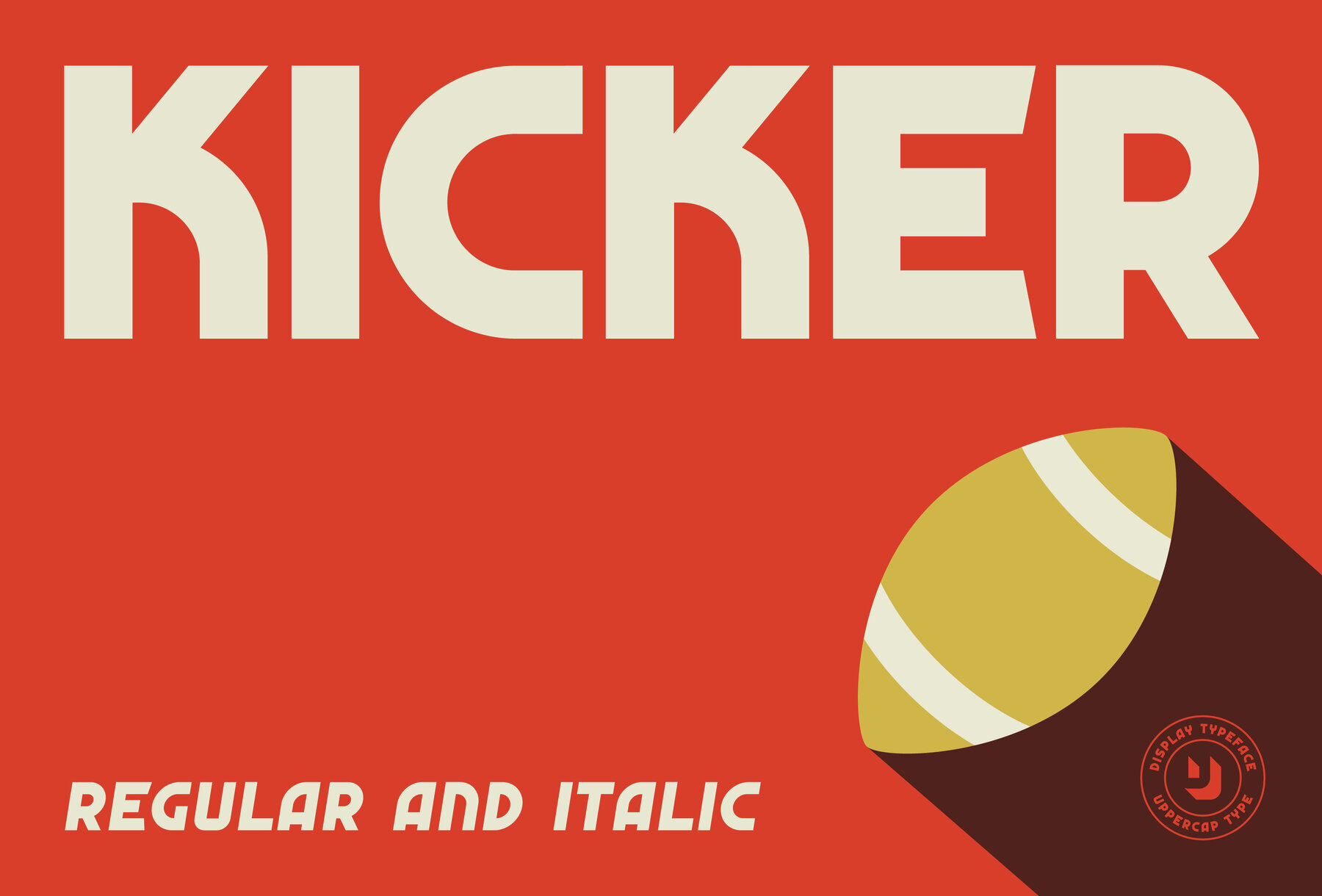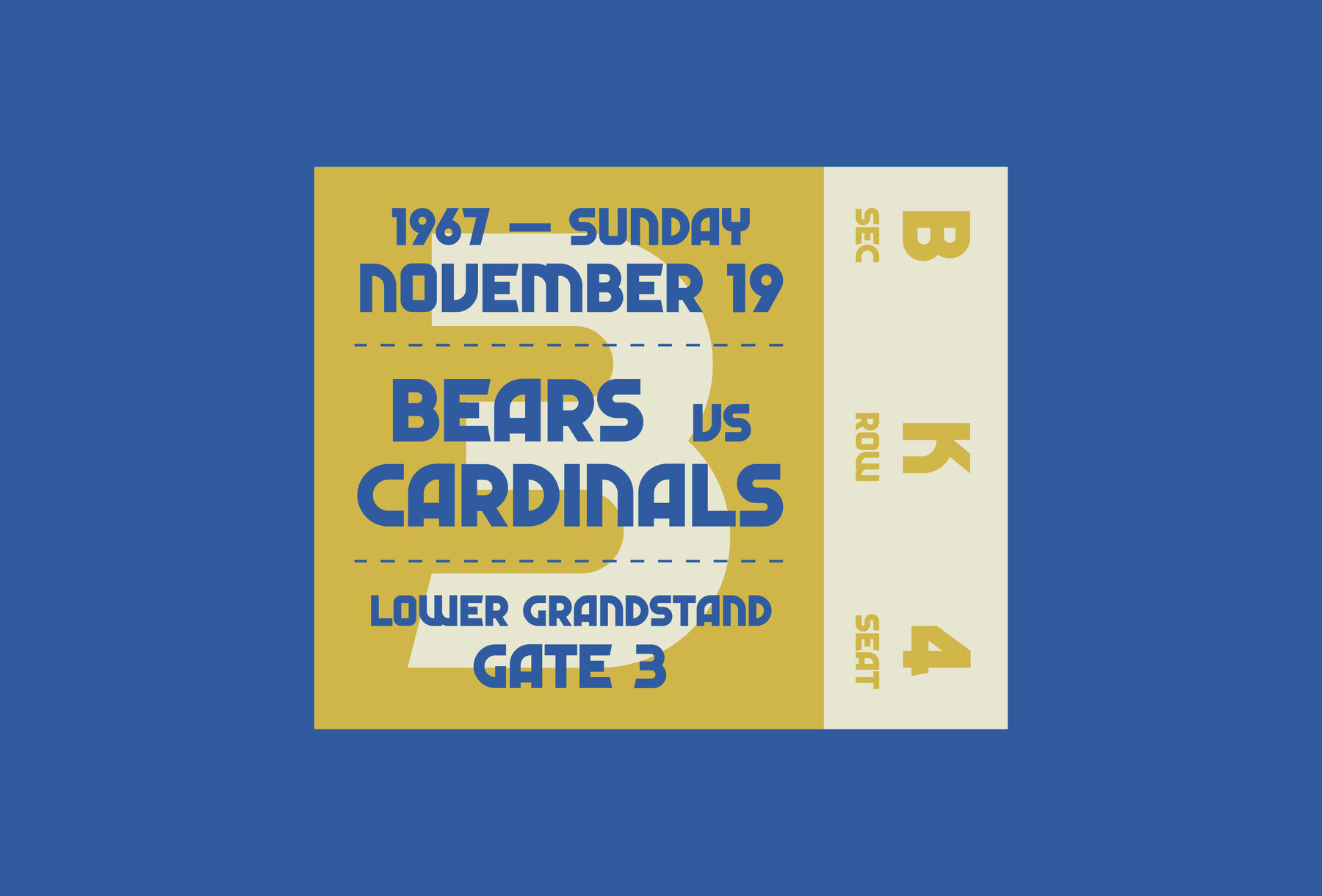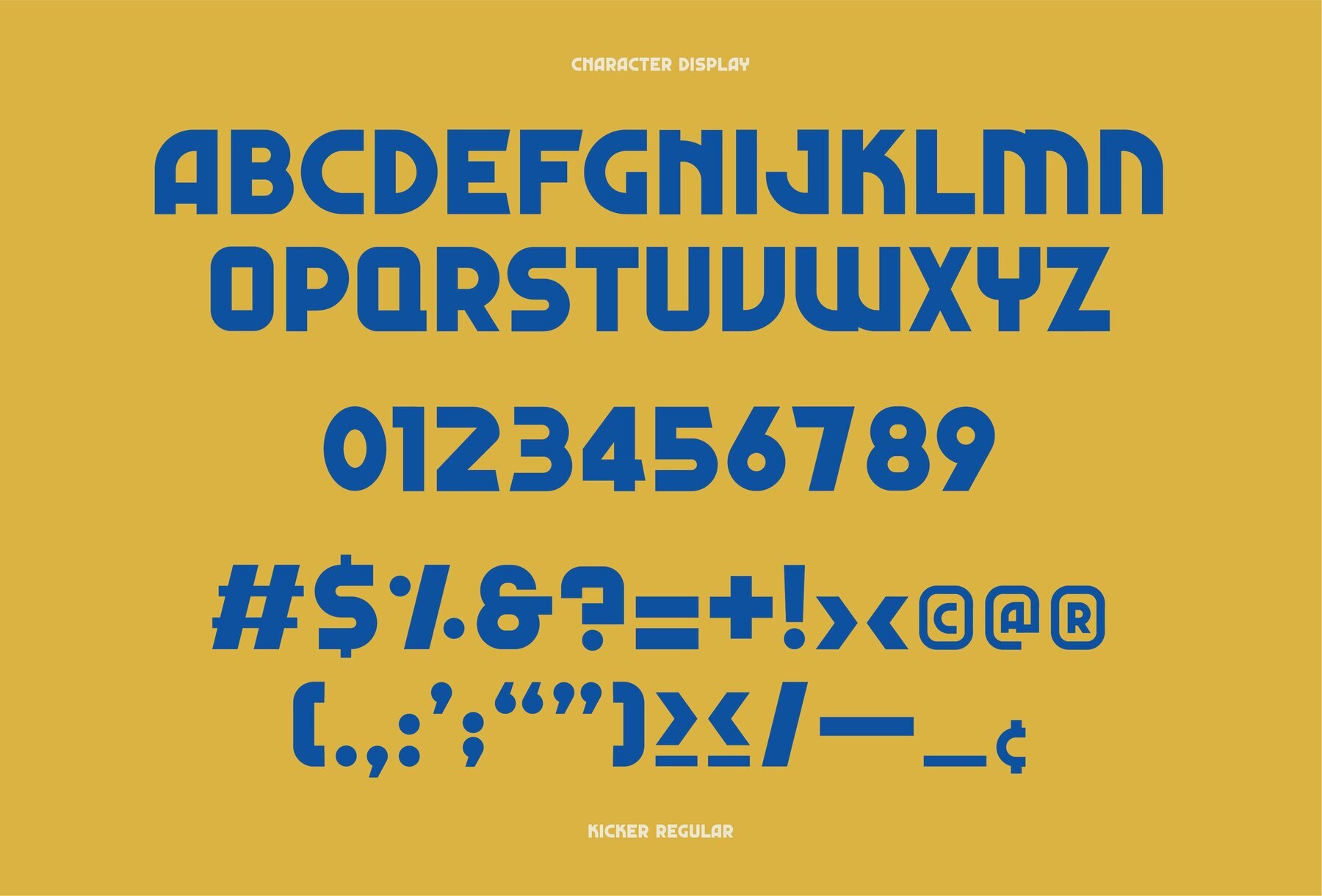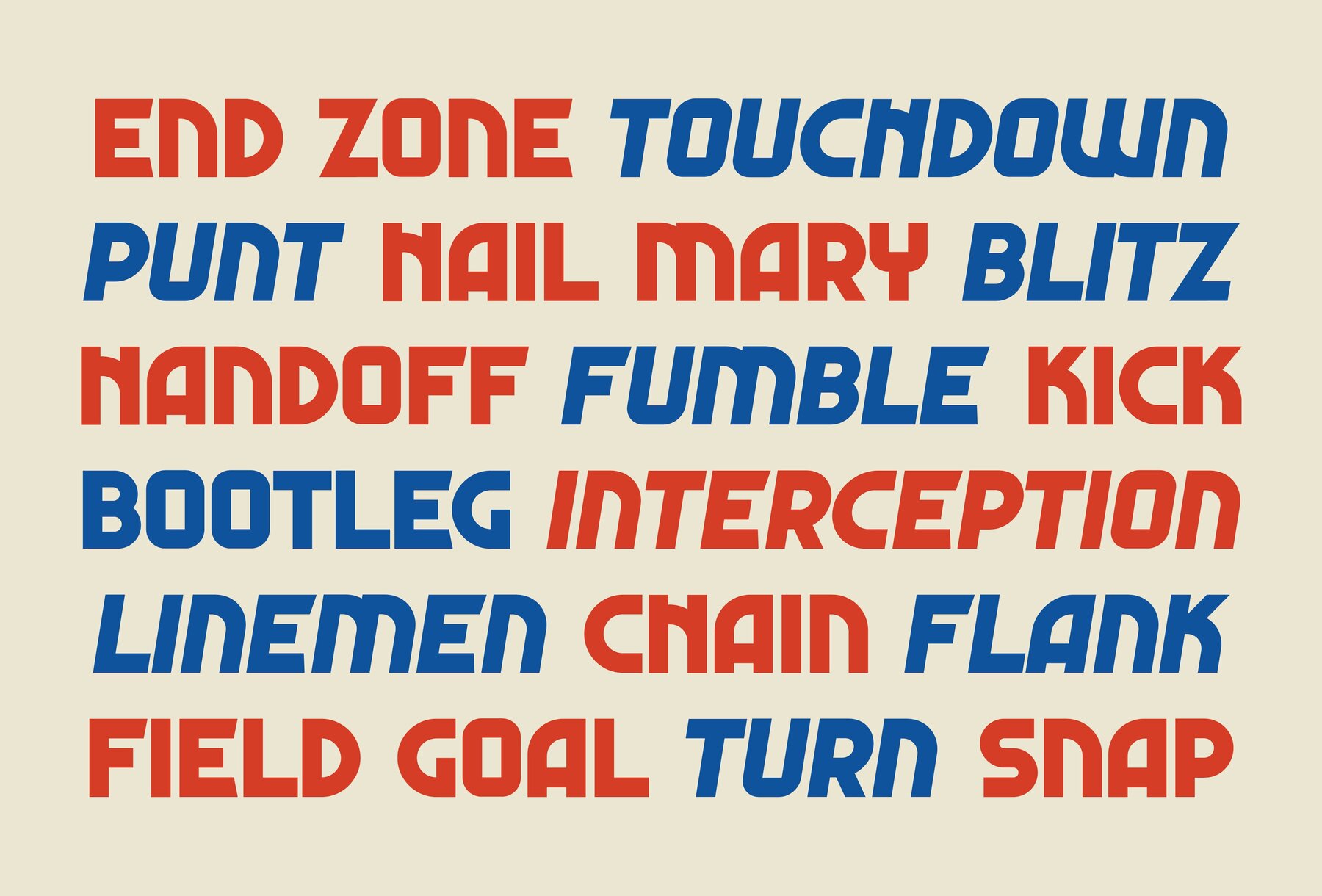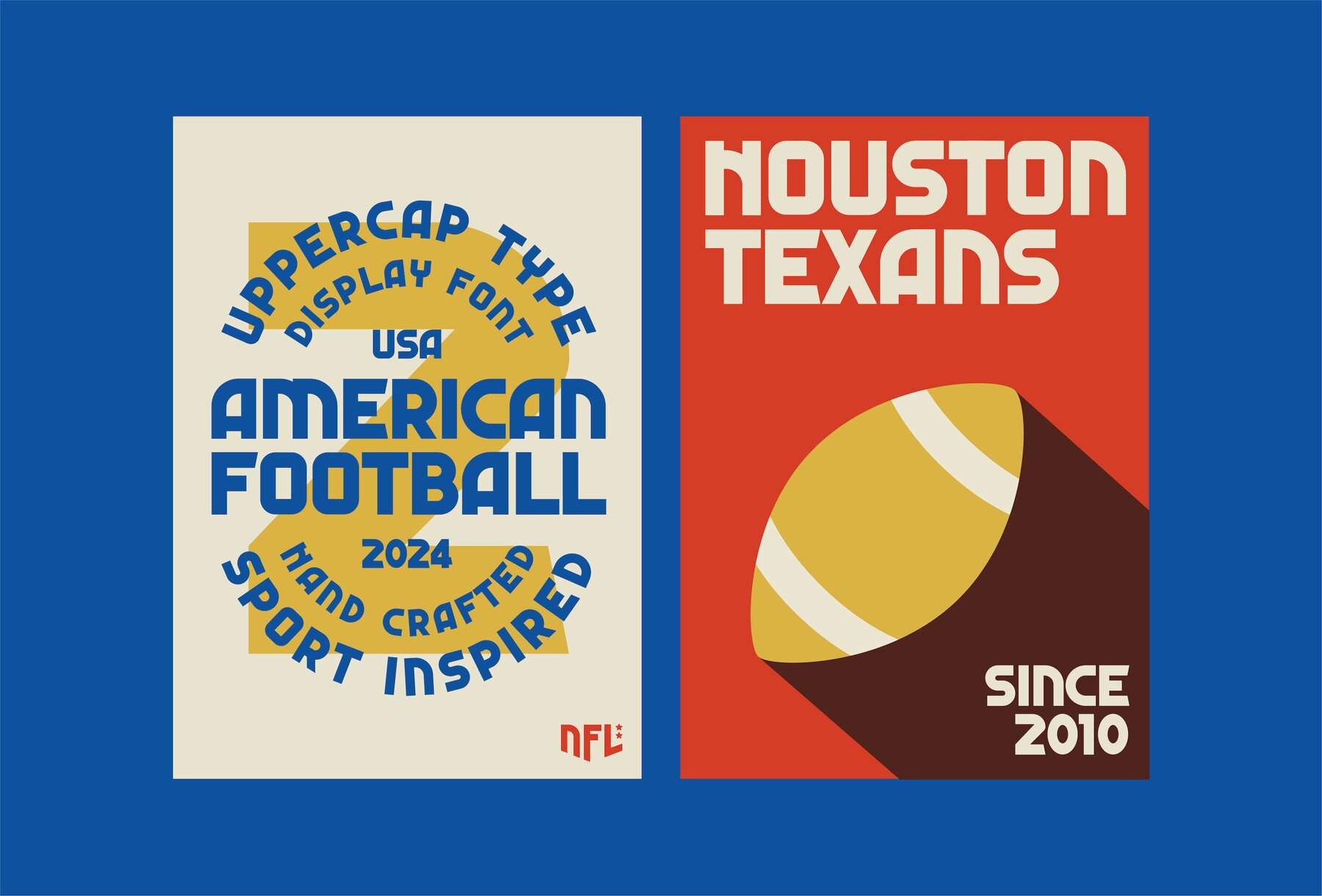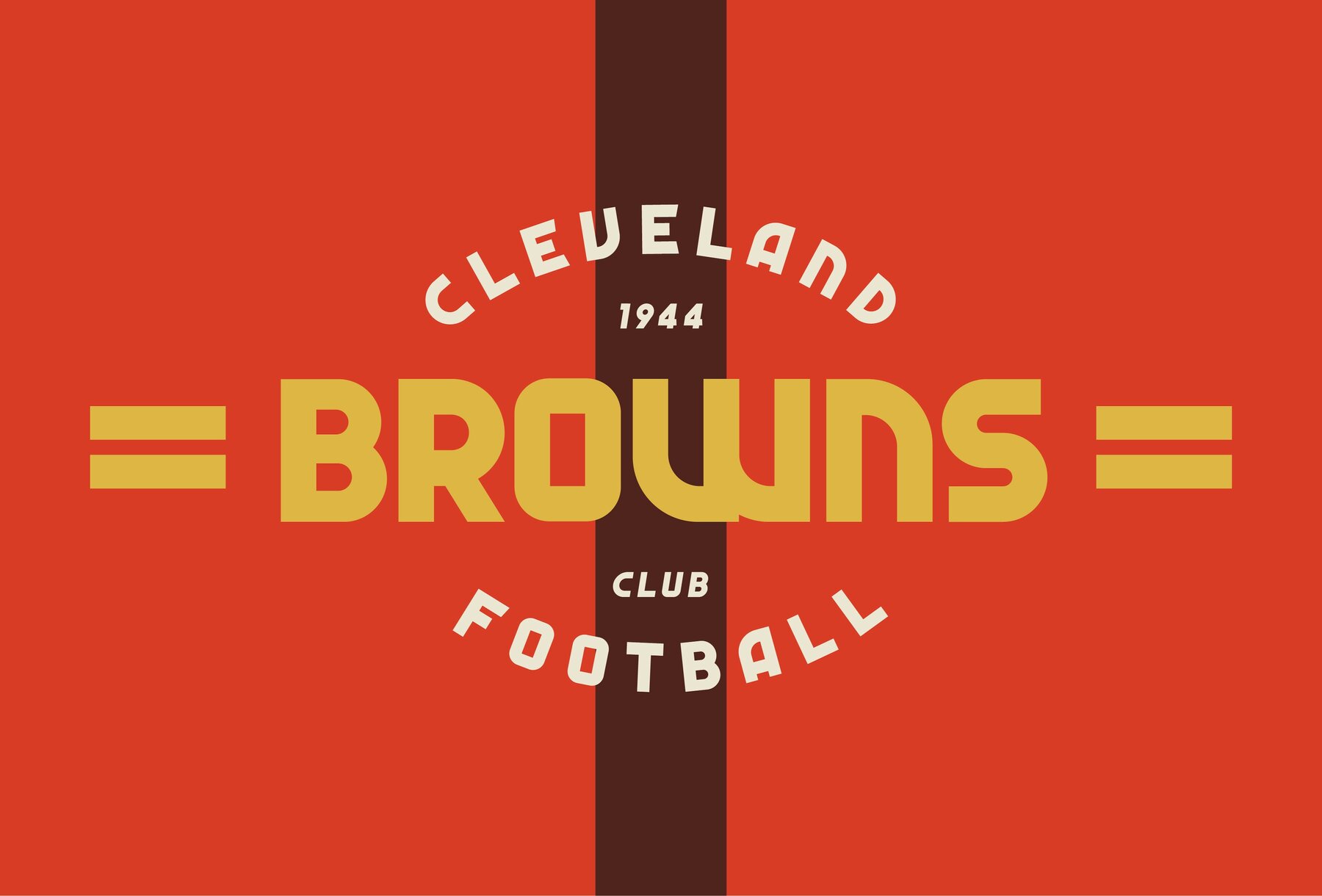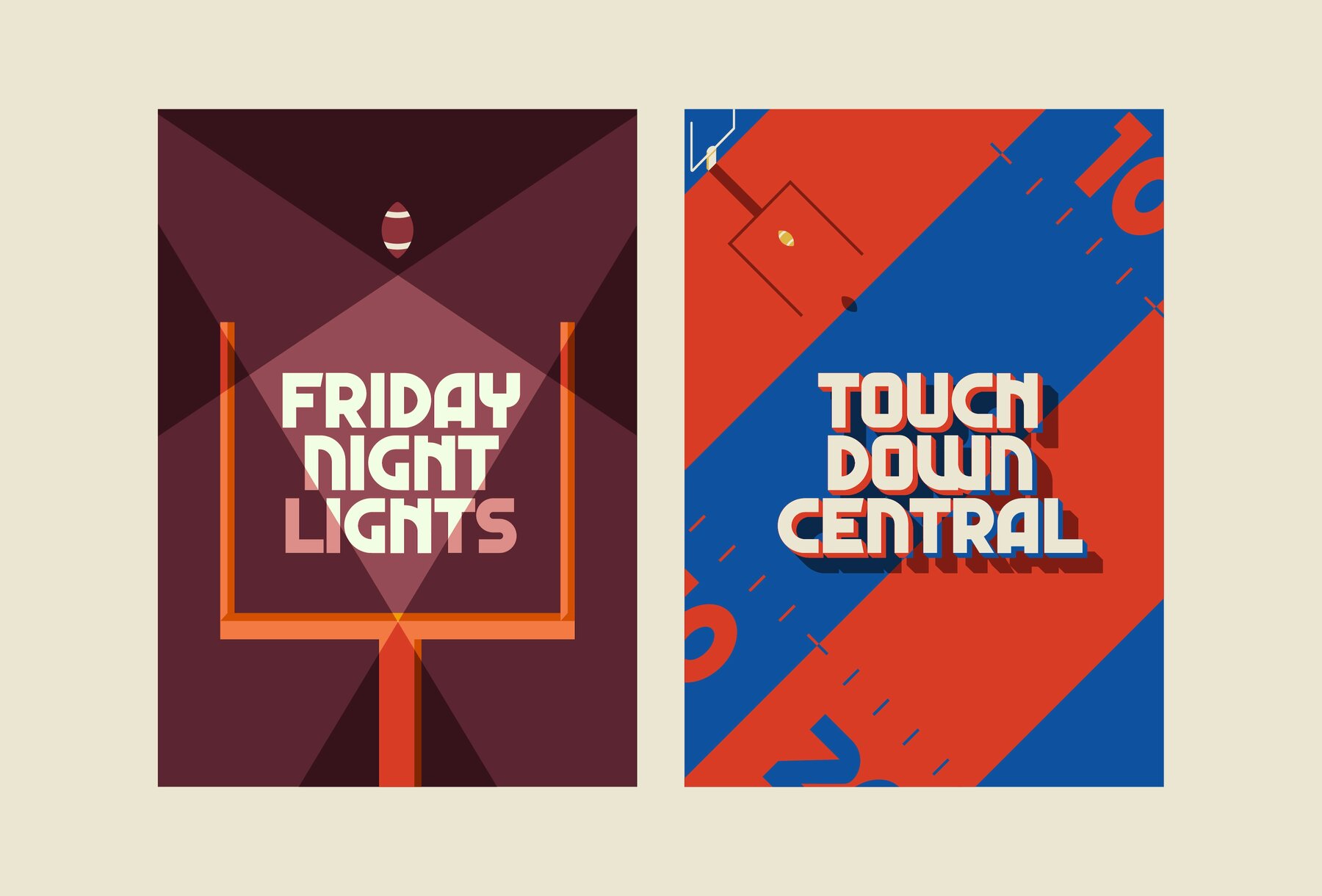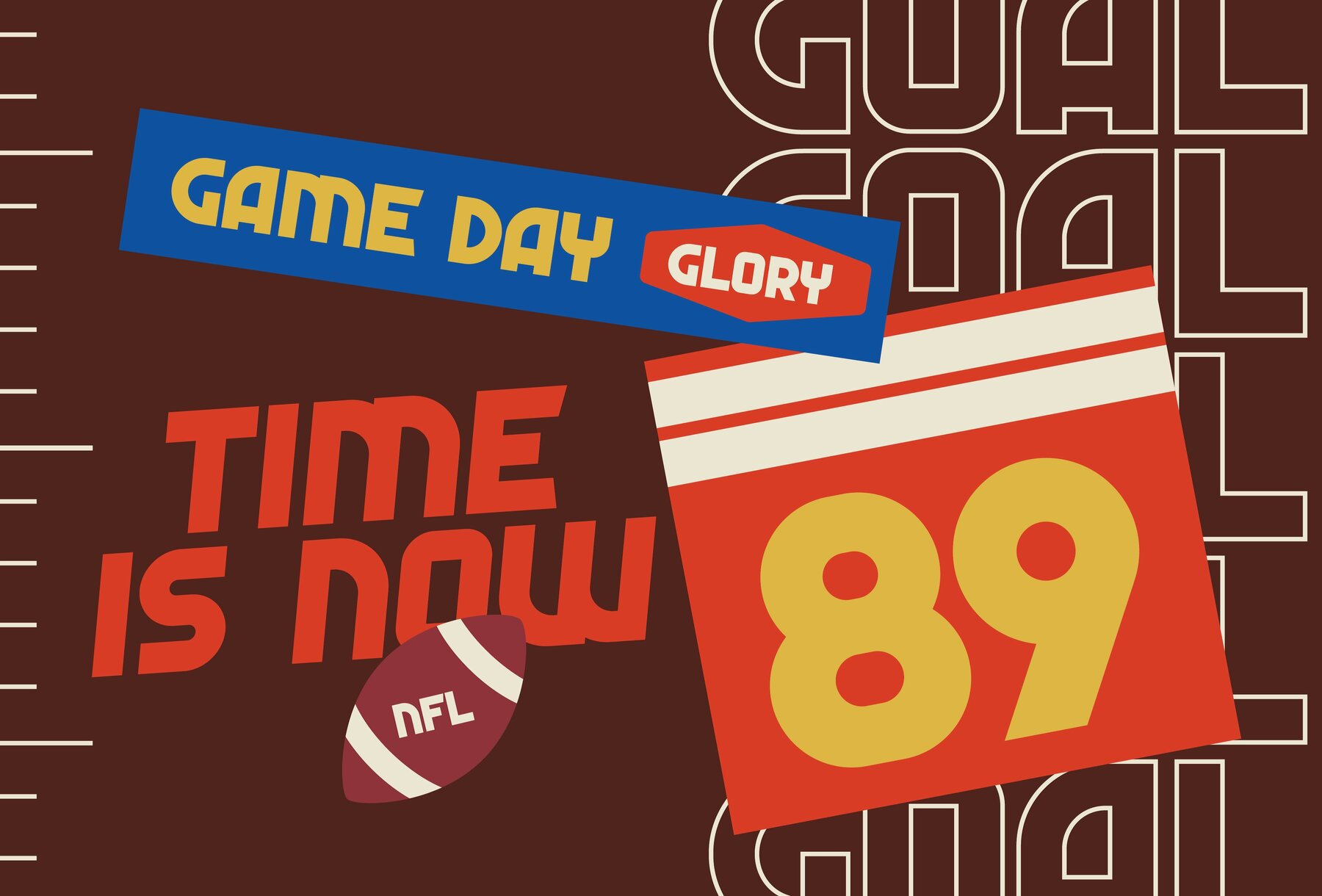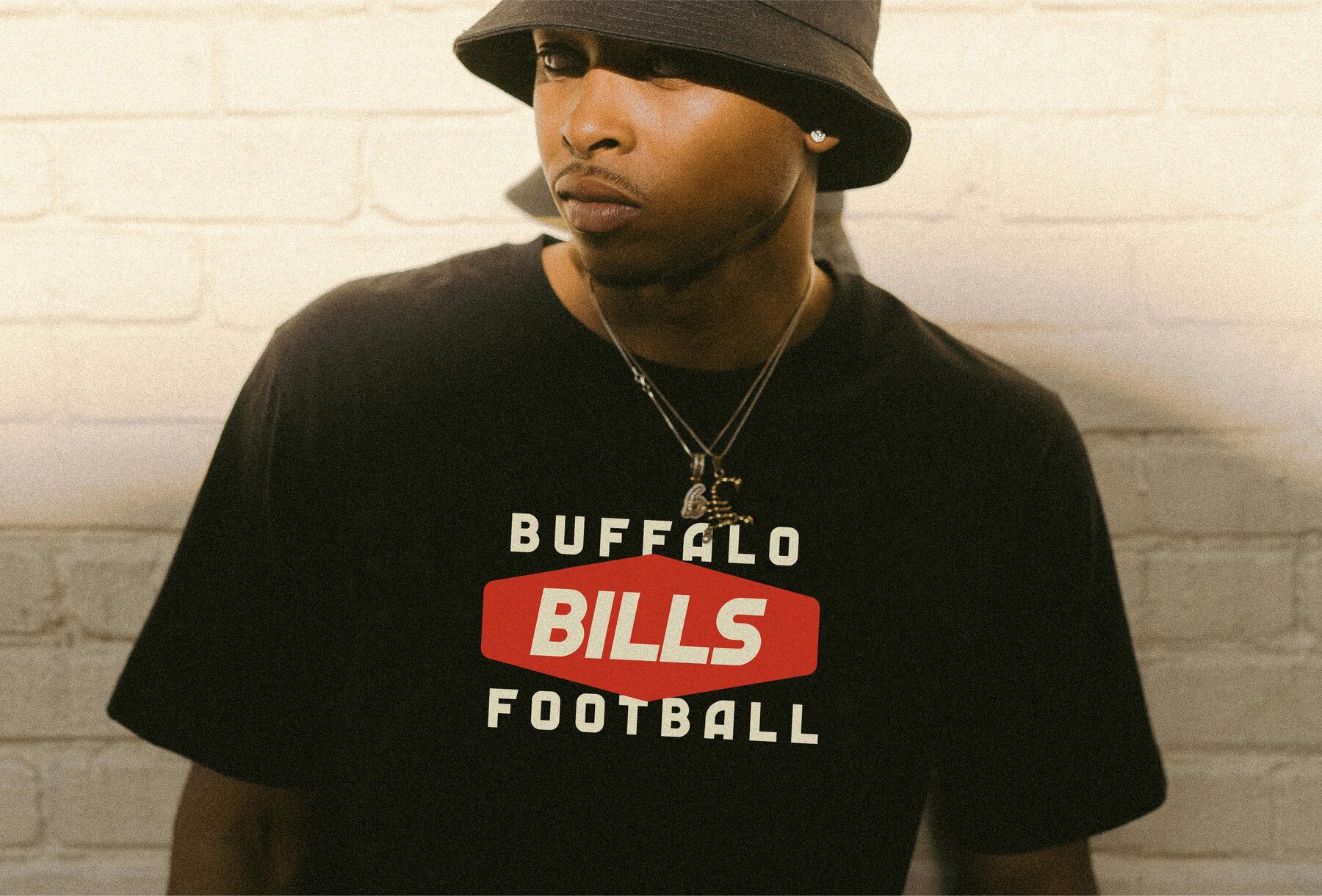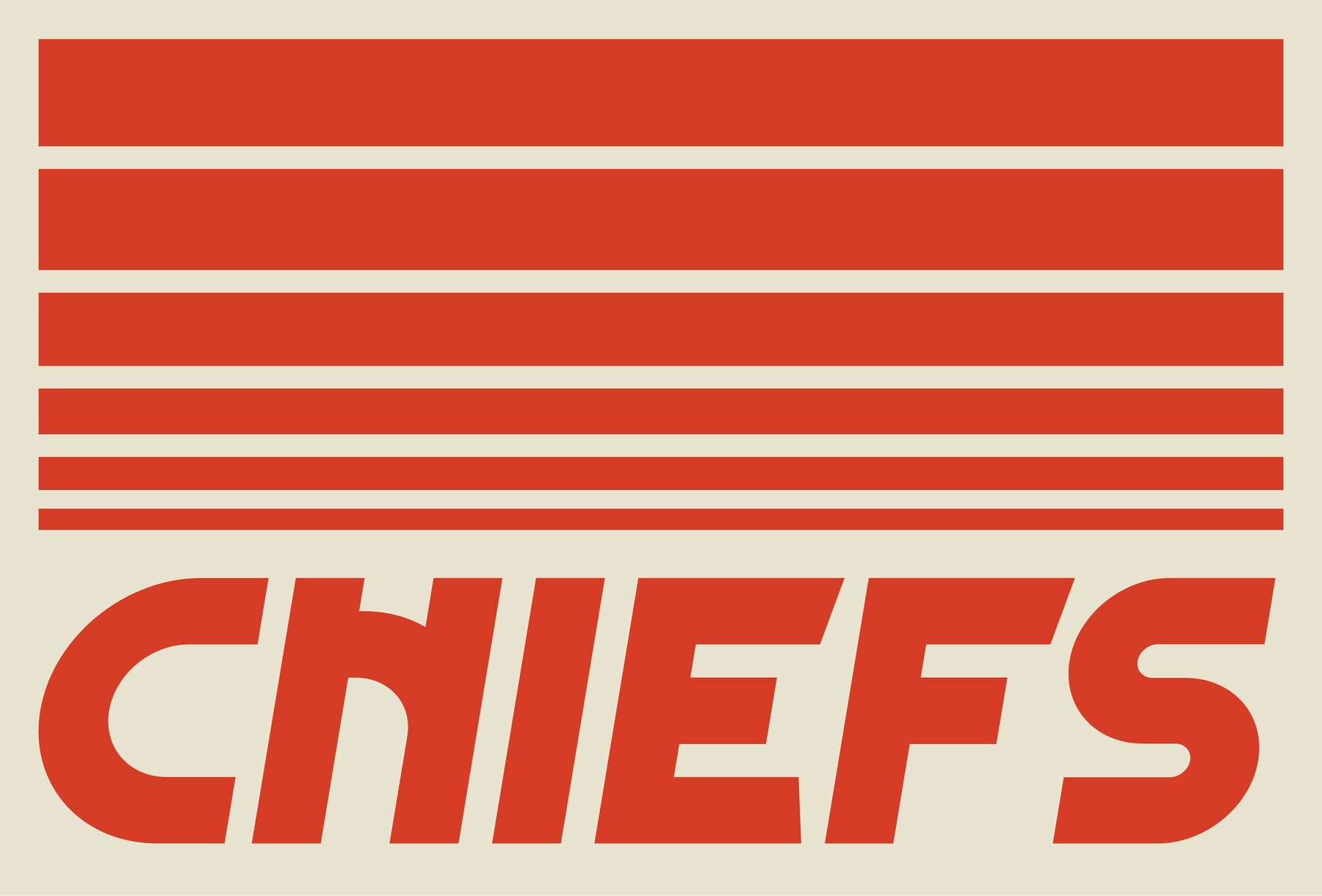
Kicker Font
UT Kicker
UT Kicker Italic
Kicker is a sports sans serif display font that draws inspiration from classic NFL memorabilia to bring a modern retro aesthetic to your projects. Available in two weights—regular and italic—Kicker is crafted for display purposes, making it perfect for logos, posters, and typography badges. Boasting bold, dynamic, and geometric characters, Kicker offers a unique blend of vintage charm and contemporary flair, positioning it as an ideal companion for various creative applications.Kicker: Vintage-Inspired Sports Sans Serif